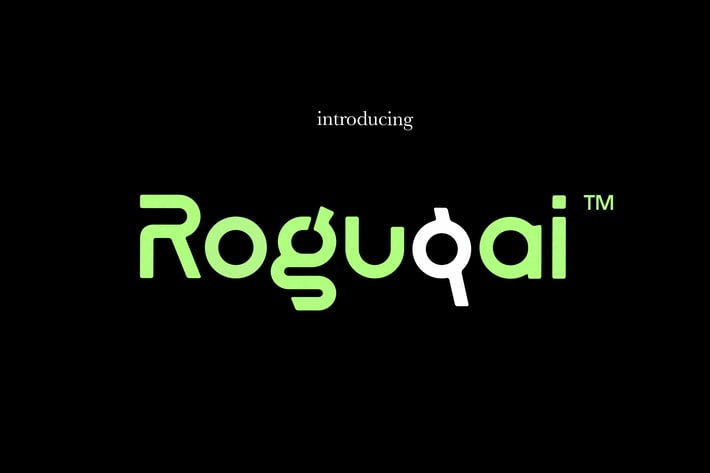
Roguqai Font
Roguqai is a versatile sans-serif font with a modern and creative aesthetic. Featuring smooth, rounded corners, it brings a friendly yet professional vibe to your designs. The font includes both uppercase and lowercase glyphs, making it perfect for a wide range of applications. Whether you're crafting a standout logotype, designing eye-catching headers, or creating visually appealing branding materials, Roguqai delivers a clean and polished look that’s sure to captivate. Its contemporary design and approachable style make it an ideal choice for creative projects that demand both originality and clarity.
Uppercase & Lowercase Glyph
Basic Latin Character
Creative ligatures
Numeral and Punctuation
Currencies